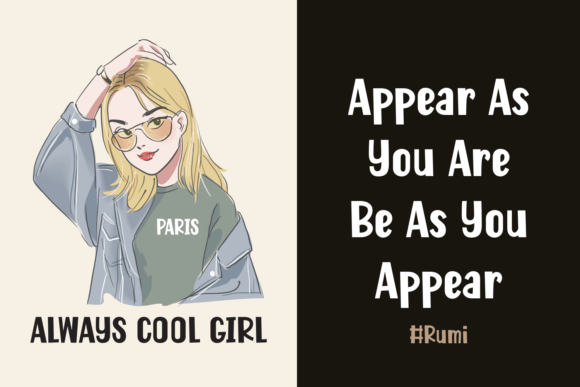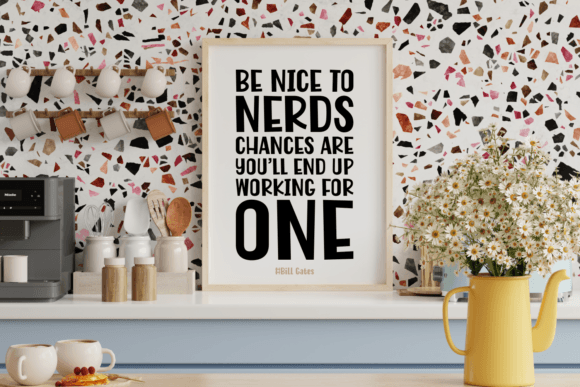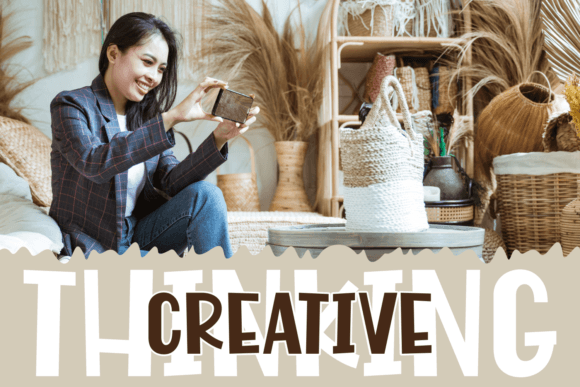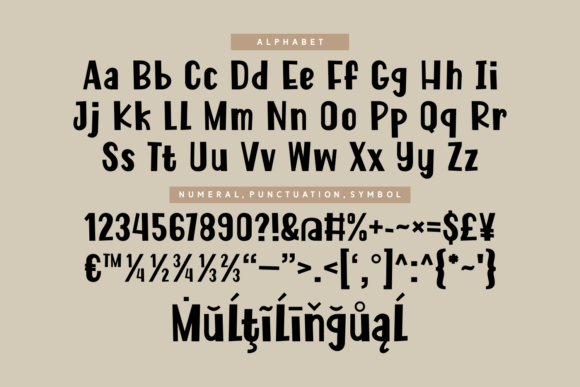
Introduction to Keep on Walking Font
As a designer, have you ever been stuck in a creative rut, unable to find the perfect font to bring your project to life? I know I have. But then, it happens – that one moment of pure inspiration, where everything falls into place, and your design starts to take shape. For me, that moment came when I stumbled upon the Keep on Walking Font. Its playful, carefree vibe was just what I needed to breathe new life into my latest design project.
| 📌 Product Name | Keep on Walking Font |
| 👤 Author | Refy (7NTypes) |
With its transparent background and high-quality design, the Keep on Walking Font is a valuable resource for any designer looking to add a touch of whimsy to their work. Whether you’re working on a greeting card, a headline, or a creative project of your own, this font is sure to bring a smile to your face and a spring to your step. And the best part? It’s available for free download, making it an accessible design resource for designers of all levels.
Key Features of Keep on Walking Font
- High-quality design resource perfect for creative projects, including logos, posters, and social media graphics.
- Transparent background option allows for seamless blending with any background, giving you maximum design flexibility.
- Unique, hand-drawn style that adds a personal touch to your designs, making it stand out from more generic fonts.
Honest Review: Keep on Walking Font
I recently had the chance to work with the Keep on Walking Font, and I must say it’s a great addition to any designer’s toolkit. The first thing I noticed was its high quality, with crisp lines and clear typography that makes it perfect for use on a transparent background.
Here are some of the things that work well with the Keep on Walking Font:
- ✨ Great for creative projects, especially those that require a fun and playful vibe
- ✨ Easy to read and use in both digital and print designs
- ⚠️ Limited font sizes and styles, which may not be suitable for all design projects
- ⚠️ Some users may find the font too casual or informal for certain types of designs
Overall, I’m impressed with the Keep on Walking Font and would definitely recommend it as a design resource for any creative project. It’s a great option for designers who need a high-quality, fun font that’s easy to use and customize.
The Keep on Walking Font is perfect for creating eye-catching designs for social media, blog posts, and marketing materials. Its transparent background and high-quality design make it ideal for use in creative projects.
To get the most out of the Keep on Walking Font, experiment with different font sizes, colors, and combinations to create unique and visually appealing designs.
Is the Keep on Walking Font a high-quality design resource?
Yes, the Keep on Walking Font is a high-quality design resource, carefully crafted to provide a unique and creative touch to your projects. With its elegant and sophisticated design, it’s an excellent choice for designers working on a variety of creative projects, from branding and marketing materials to digital products and publications.